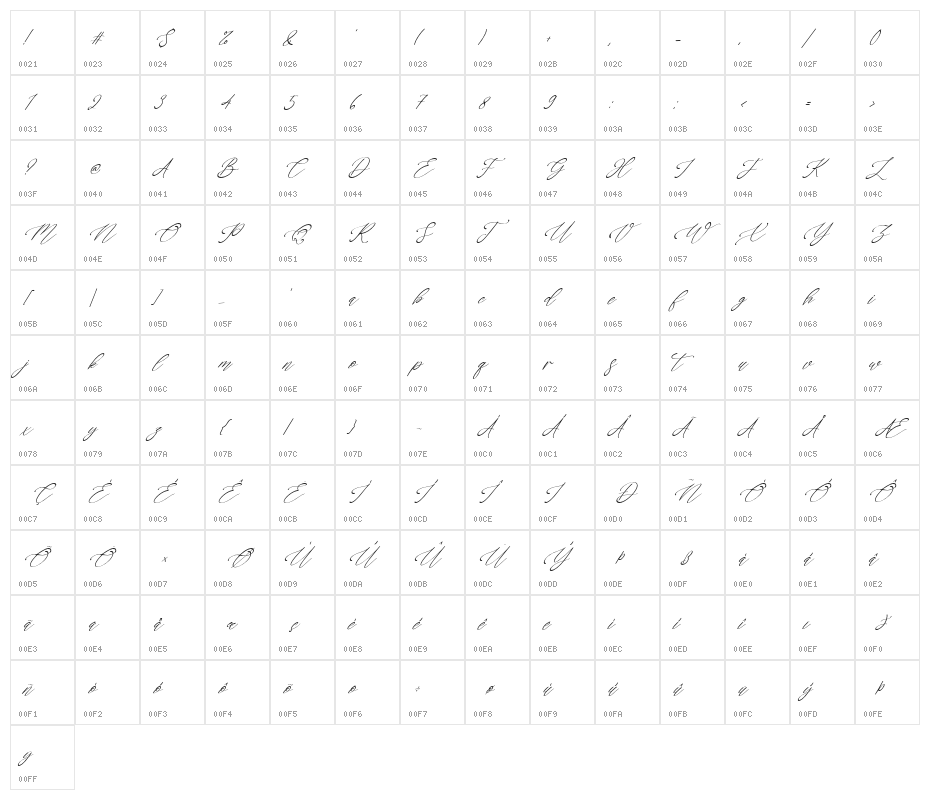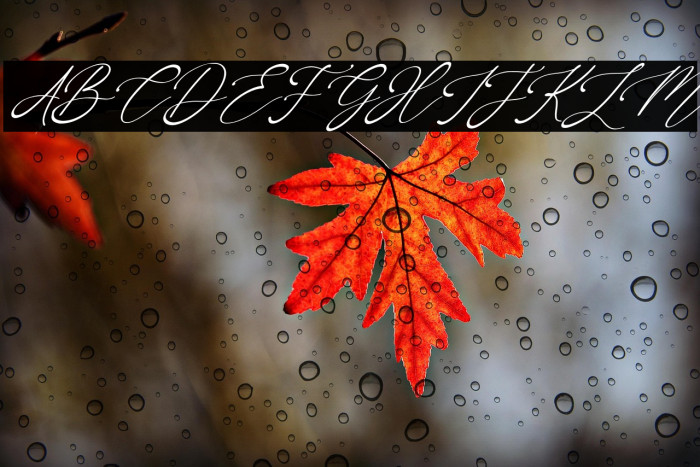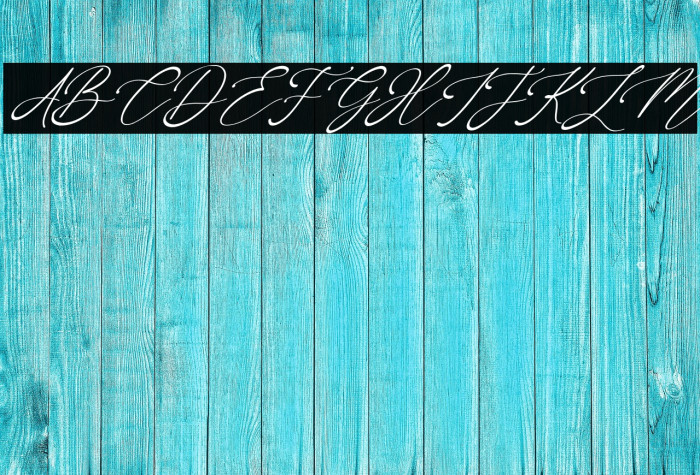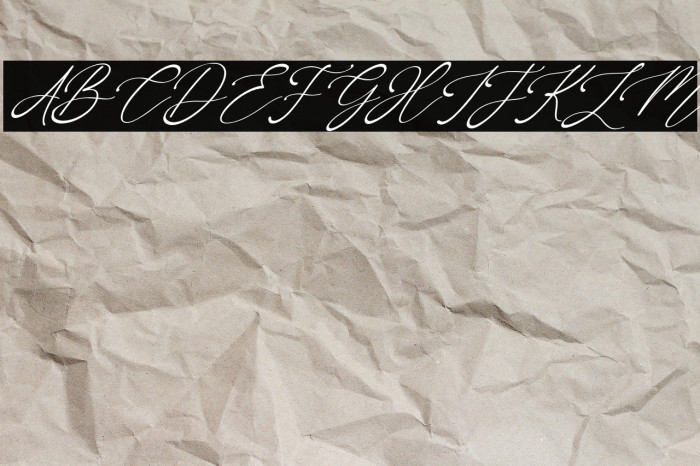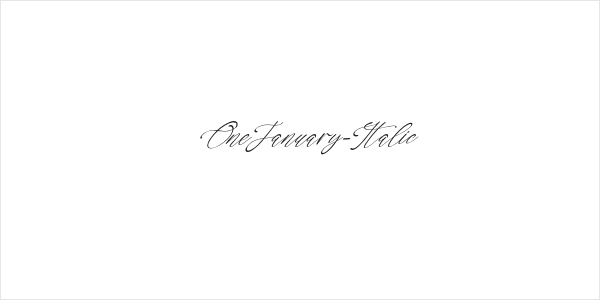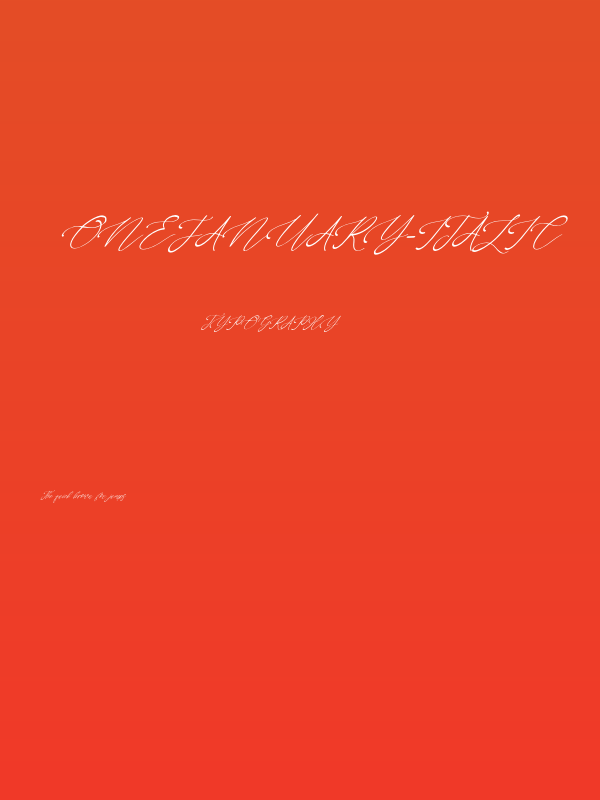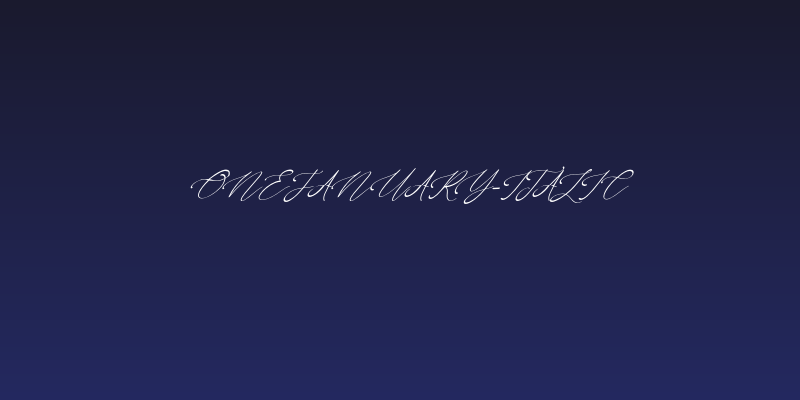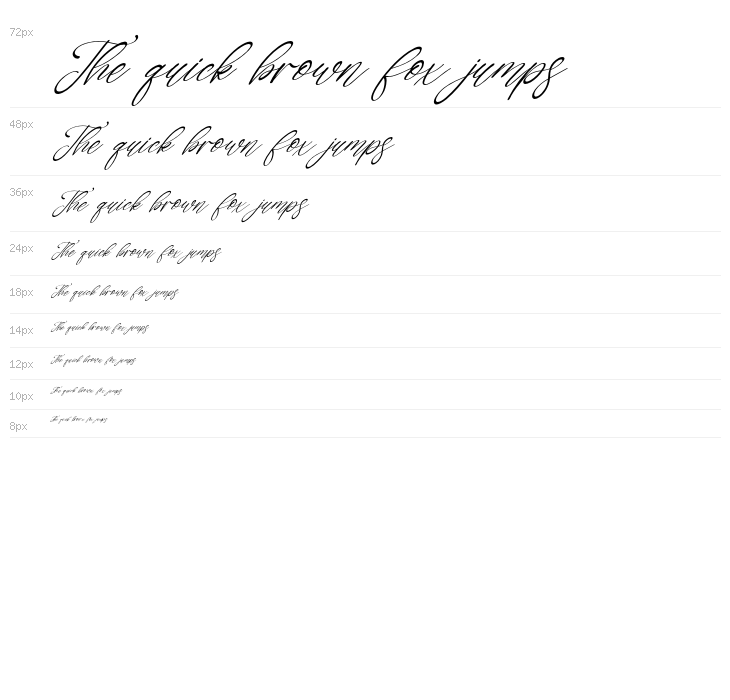
OneJanuary-Italic Font
OneJanuary-Italic Description
This font features an elegant, flowing script style with a distinctly italicized form. The characters are intricately designed, showcasing a high level of detail and sophistication. Each letter is connected with smooth, continuous strokes, creating a seamless and harmonious appearance. The uppercase letters are particularly ornate, with flourishes that add a touch of grandeur. The lowercase letters maintain a consistent style, complementing the uppercase with their graceful curves. The numerals and special characters are equally well-crafted, ensuring a cohesive look across all text. This font's delicate and refined aesthetic makes it ideal for projects that require a touch of elegance and class.